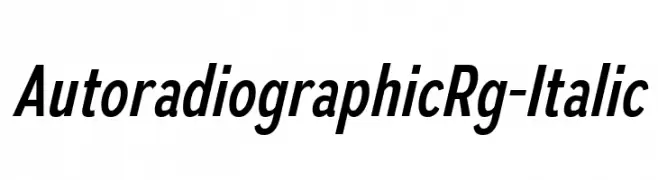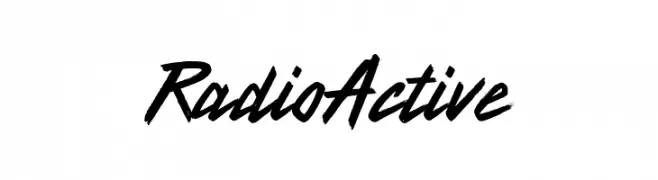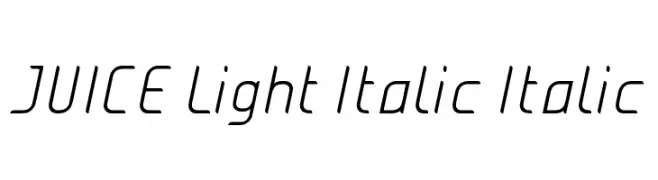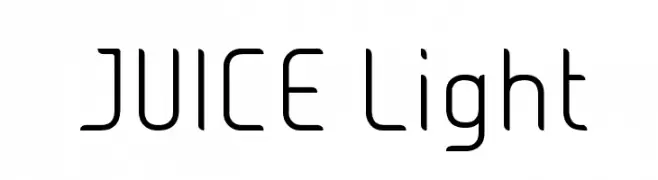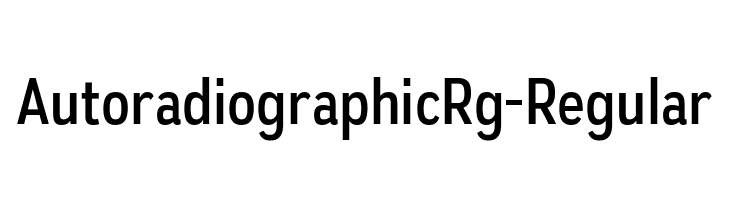
A bold, distressed font with a vintage typewriter style.
A decorative Morse code-inspired font with dots and dashes.
A modern italic font with clean lines and smooth curves.
A modern sans-serif font with clean, legible letterforms and consistent stroke width.
A bold, geometric font with a modern and striking design.
A futuristic, geometric font with rounded edges and a bold, uniform style.
A bold, brush-style script font with dynamic, hand-painted strokes.
A bold, geometric font with high contrast and decorative flair.